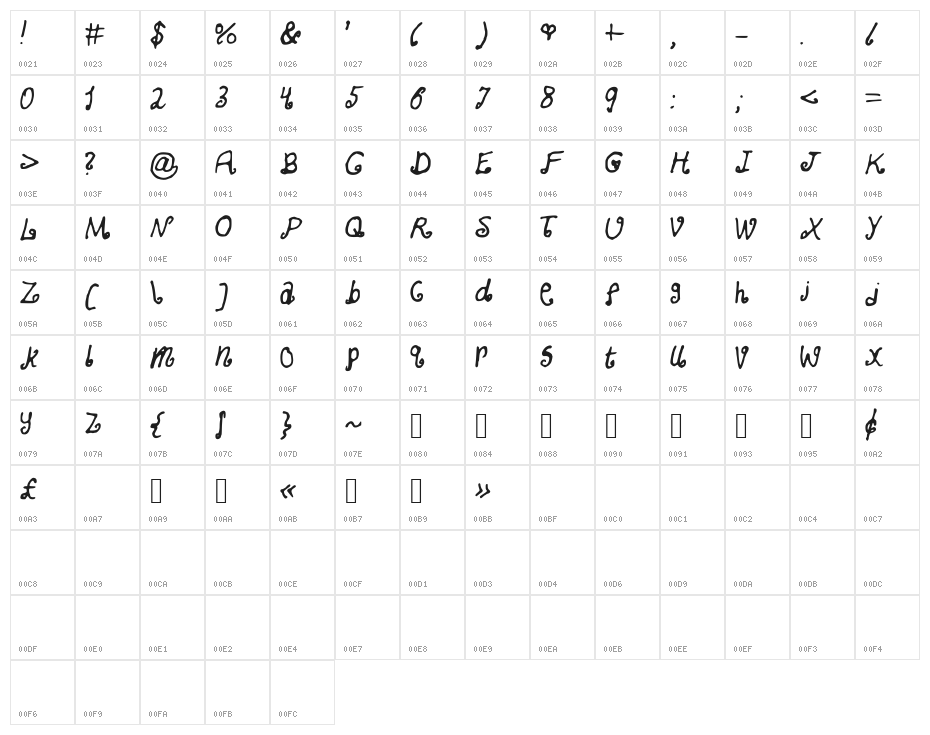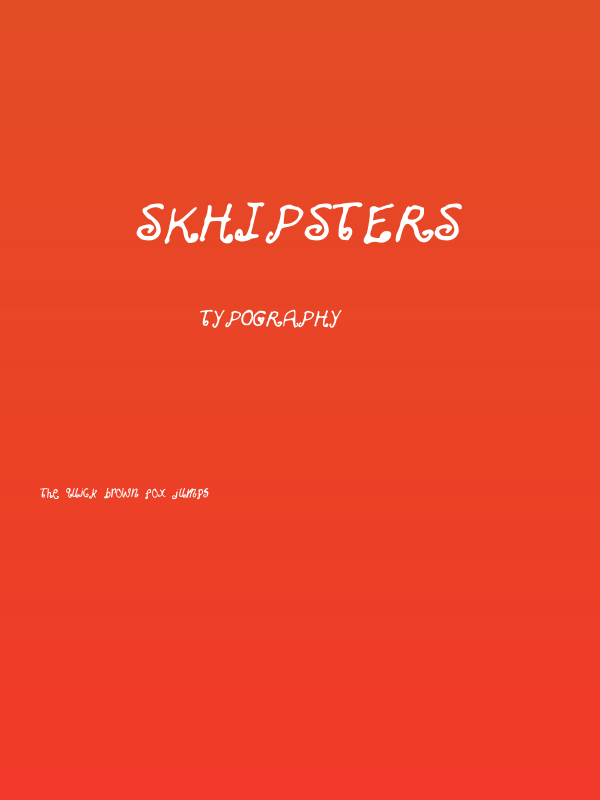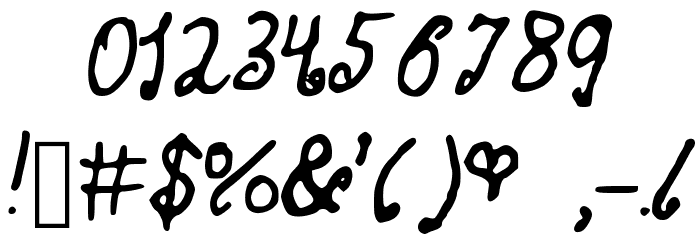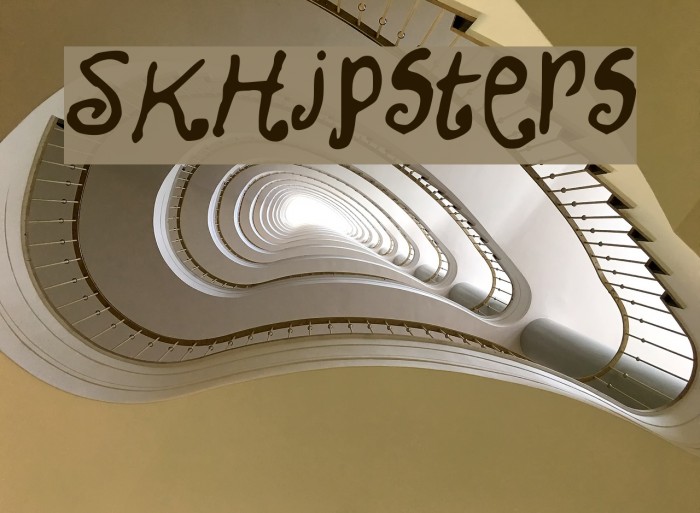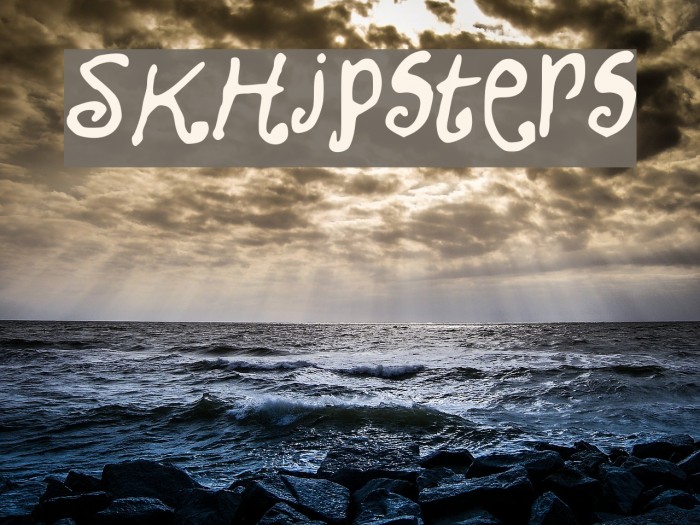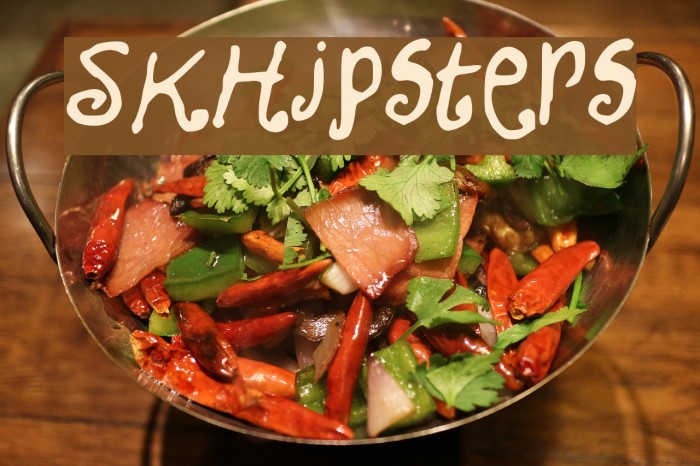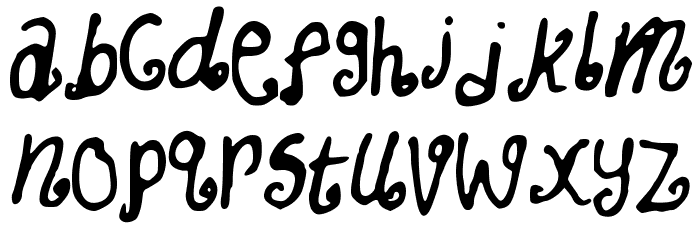
SKHipsters Font
SKHipsters Description
This font features a playful and quirky design with a handwritten style. The characters are rounded and have a whimsical, almost cartoonish appearance. The strokes are bold and consistent, with a medium contrast that adds to the font's lively personality. The letters are slightly slanted, giving a dynamic and informal feel. The character spacing is normal, allowing for readability while maintaining its unique style. This font is ideal for projects that require a fun and engaging look, such as children's books, creative posters, or playful branding.